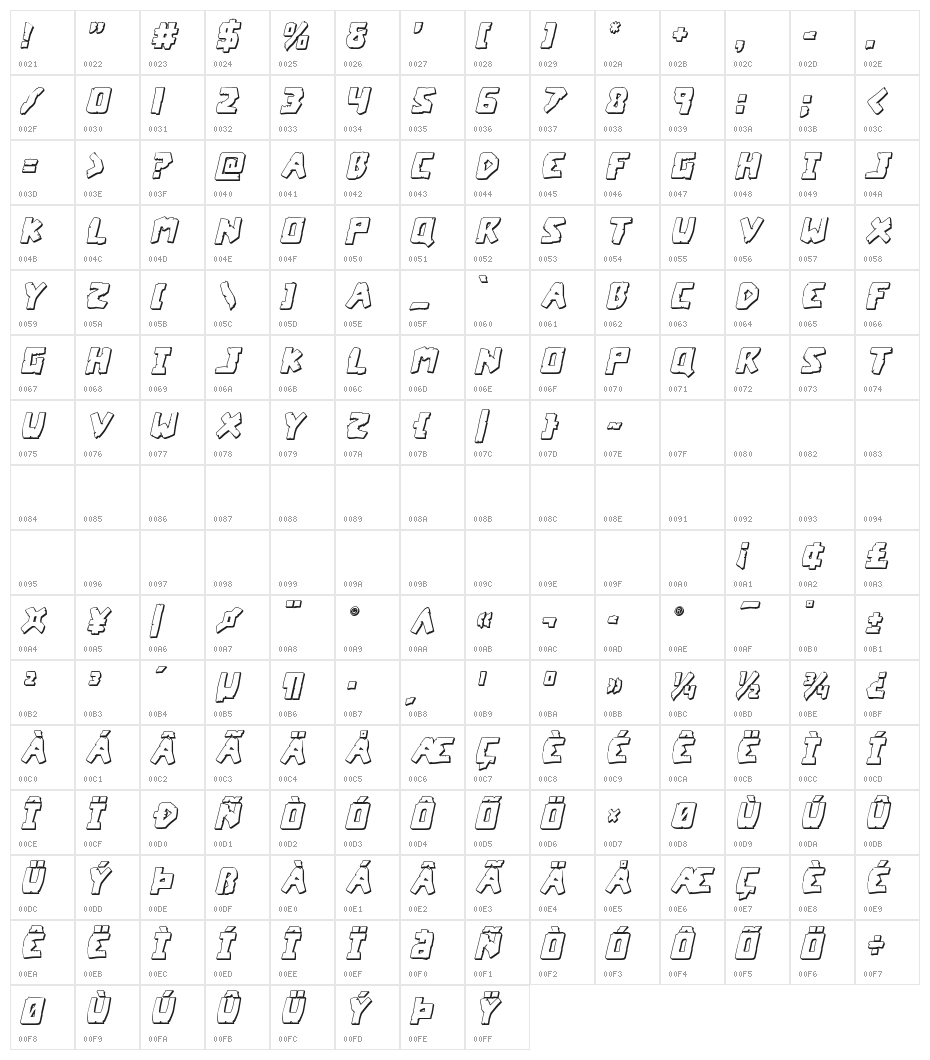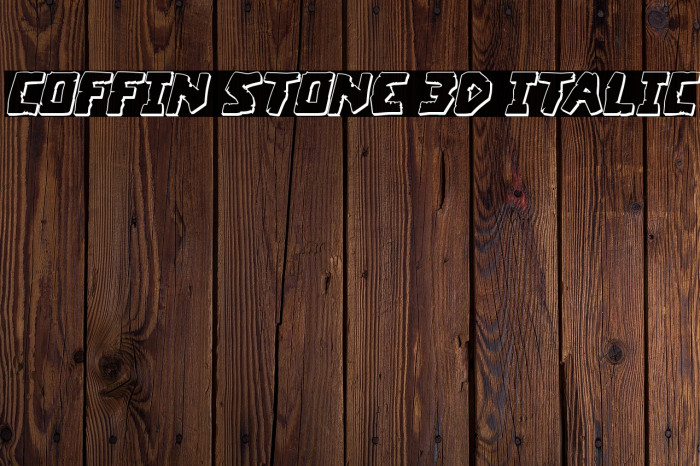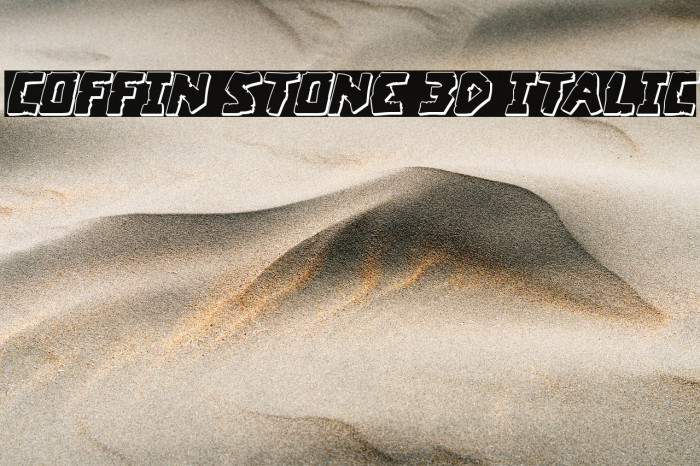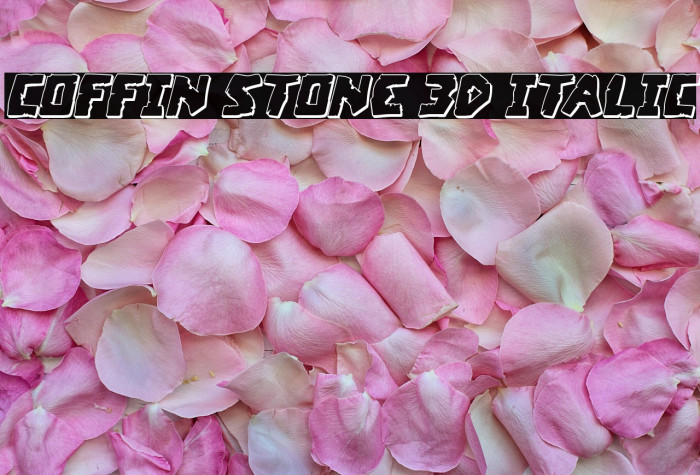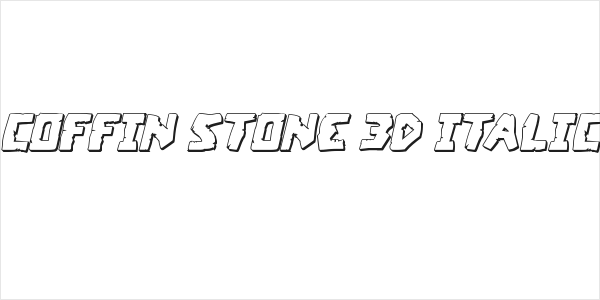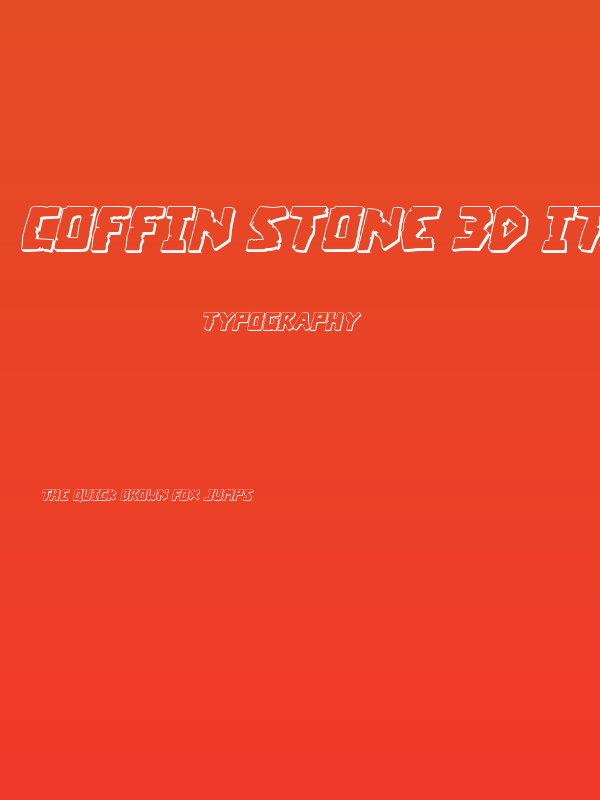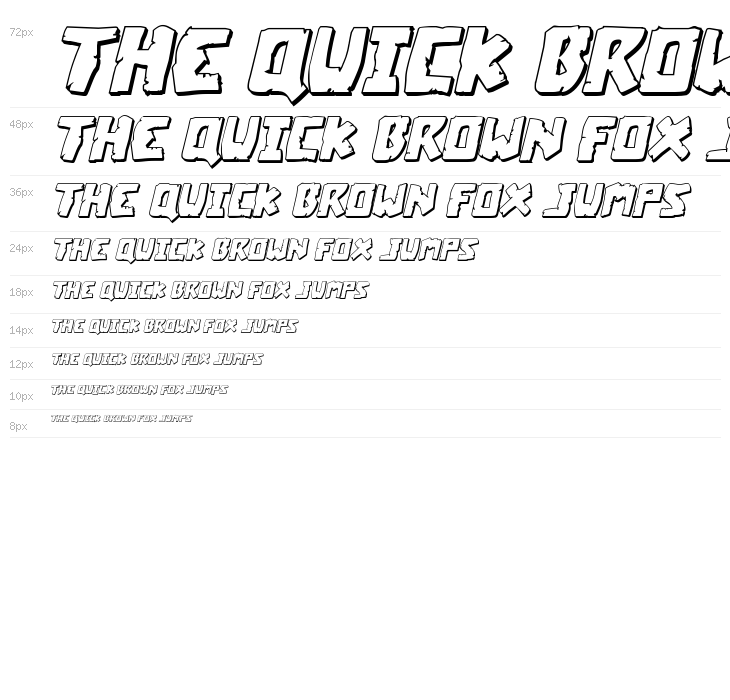
Coffin Stone 3D Italic Font
Coffin Stone 3D Italic Description
This font features a bold, three-dimensional style with an italic slant, giving it a dynamic and impactful appearance. The characters are outlined with a thick black border, enhancing the 3D effect and providing a sense of depth. Each letter and number is designed with angular, sharp edges, contributing to a rugged and edgy aesthetic. The font's unique style makes it stand out, ideal for attention-grabbing designs. The spacing between characters is moderate, ensuring readability while maintaining its bold presence. Special characters are included, matching the overall style with consistent thickness and angularity.
| Proposed Projects | Ideal for poster designs, video game graphics, branding for extreme sports, or any project needing a bold, dynamic look. |